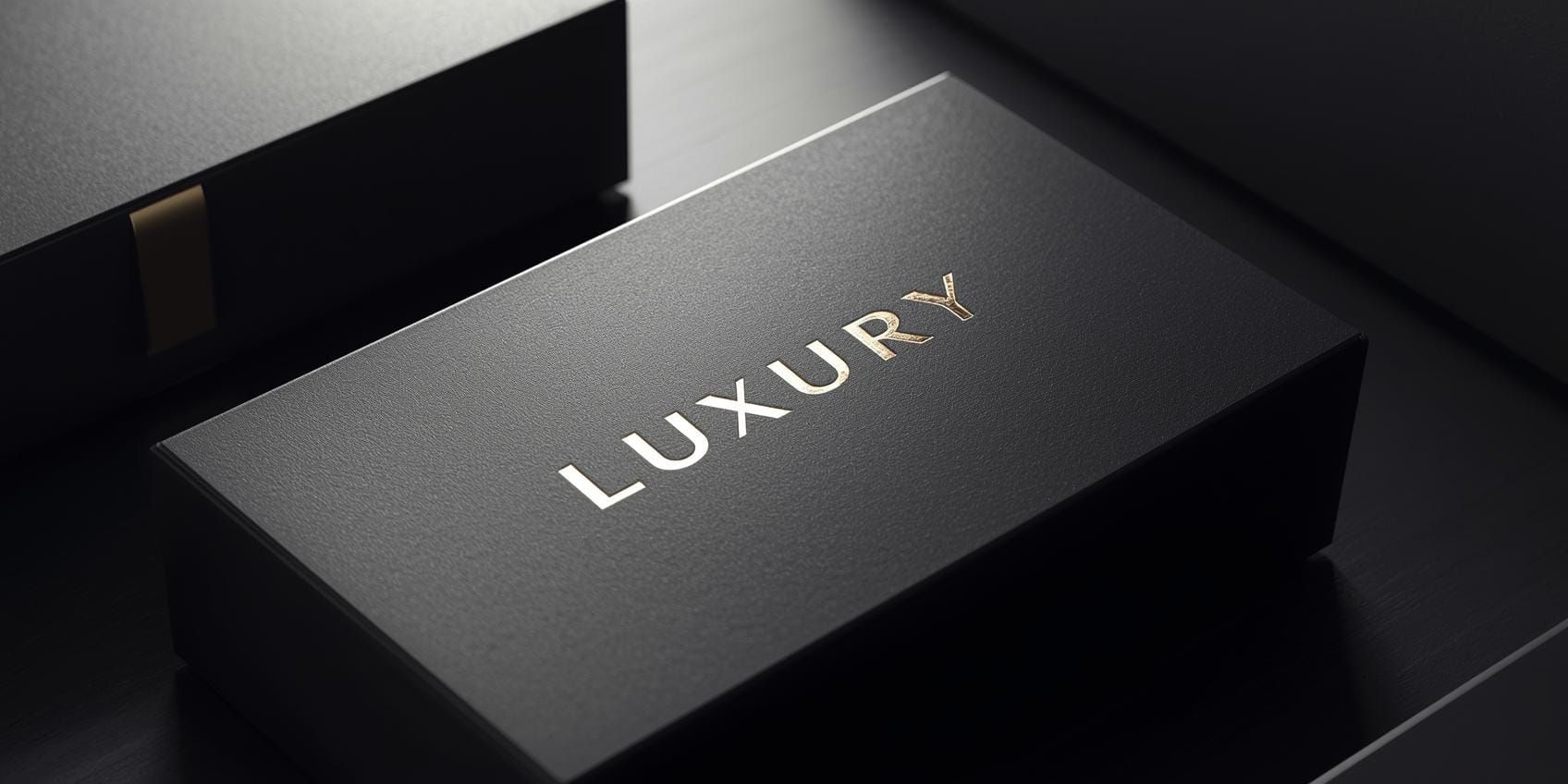
Typography Logo Design How to Make Logos Look Expensive
Most “expensive-looking” logos aren’t complicated. They’re calm, balanced, and intentional. The difference is rarely a fancy icon. It’s the typography, the font choice, the spacing, the proportions, and the small refinements that make a wordmark feel premium at any size. That’s why typography logo design is one of the highest leverage skills for beginners, designers, and small businesses.
In this guide, you’ll learn how to make logos look expensive using a simple, repeatable typography logo design process you can apply in Figma, Illustrator, Canva, or any tool you use.
Typography Logo Design Starts with What “Expensive” Really Means
“Expensive” is a feeling. In logo terms, it usually means:
• simple and confident
• readable at small sizes
• consistent spacing and alignment
• strong contrast (but not harsh)
• no unnecessary effects
When people say a logo looks cheap, they often mean it looks busy, inconsistent, or unbalanced. Great typography logo design removes those problems.
1. Choose One Clear Logo Type for Typography Logo Design
Before picking fonts, decide the structure. Expensive brands keep the structure simple.
Common typography logo types
• Wordmark: brand name only
• Monogram: initials
• Wordmark + small descriptor: brand name + tagline/category
• Lettermark: 2-4 letters
If you try to do everything at once, the logo won’t feel premium. A clean typography logo design starts with one main idea.
2. Use Fewer Fonts and Fewer Tricks for Typography Logo Design
Premium brands don’t show off. They use restraint.
The simplest premium formula
• one font family
• one weight (or two weights max)
• minimal styling (no heavy shadows, no outlines, no gradients)
If you need variety, use:
• weight changes
• spacing changes
• case changes (upper/lower)
• a subtle separator dot or line
This is the core of expensive-looking typography logo design.
3. Pick Fonts that Feel Stable and Intentional for Typography Logo Design
Font choice sets the tone instantly. Your goal is not “trendy.” Your goal is “trusted.”
Safe premium directions
• Neo-grotesk sans: clean, modern, serious
• Humanist sans: friendly trust, still professional
• Refined serif: editorial, luxury, timeless
• Modern serif: premium but contemporary
What to avoid for a premium look
• overly decorative fonts
• thin scripts for the main logo
• fonts with quirky novelty shapes (unless that’s the brand)
In typography logo design, the most expensive move is often choosing a font that doesn’t distract.
4. Master Spacing and Kerning for Typography Logo Design
Kerning is the fastest giveaway. If spacing is off, the logo looks amateur even if the font is expensive.
What to check
• gaps that feel too wide (often around “T”, “V”, “W”, “Y”)
• letters that collide (often “A” next to “V”, “T” next to “o”)
• uneven rhythm across the word
Simple kerning workflow
1. Type the name in your chosen font
2. Convert to outlines only when you’re ready to finalize
3. Zoom in and adjust letter pairs
4. Zoom out and check overall balance
5. Repeat until it feels even
Premium typography logo design is a “zoom in, zoom out” habit.
5. Use Optical Alignment, Not Perfect Math for Typography Logo Design
Beginners align things by the bounding box. Premium design aligns by what the eye feels.
Optical alignment examples
• Round letters (O, C) may look too low if you align by box
• A tagline might look centered mathematically but “float” visually
• A dot or small icon might need nudging to feel balanced
In typography logo design, trust your eye more than the numbers.
6. Build a Strong Contrast System for Typography Logo Design
“Expensive” doesn’t mean “high contrast everywhere.” It means contrast is used intentionally.
Easy contrast decisions
• Keep the wordmark as one color (black or deep neutral)
• Use accent color only as a small highlight (optional)
• Avoid light gray logos on white backgrounds (looks weak)
For most brands, the most premium version of a logo is:
• solid dark on light background
• solid light on dark background
A strong typography logo design always works in one color.
7. Create a Wordmark with a Signature Detail for Typography Logo Design
Premium logos often have one subtle signature, not ten decorations.
Simple signature ideas
• slightly increased letter spacing
• custom ligature (two letters connected)
• one modified letter (a notch, cut, or softened corner)
• a small dot separator
• a minimal underline or bar (used sparingly)